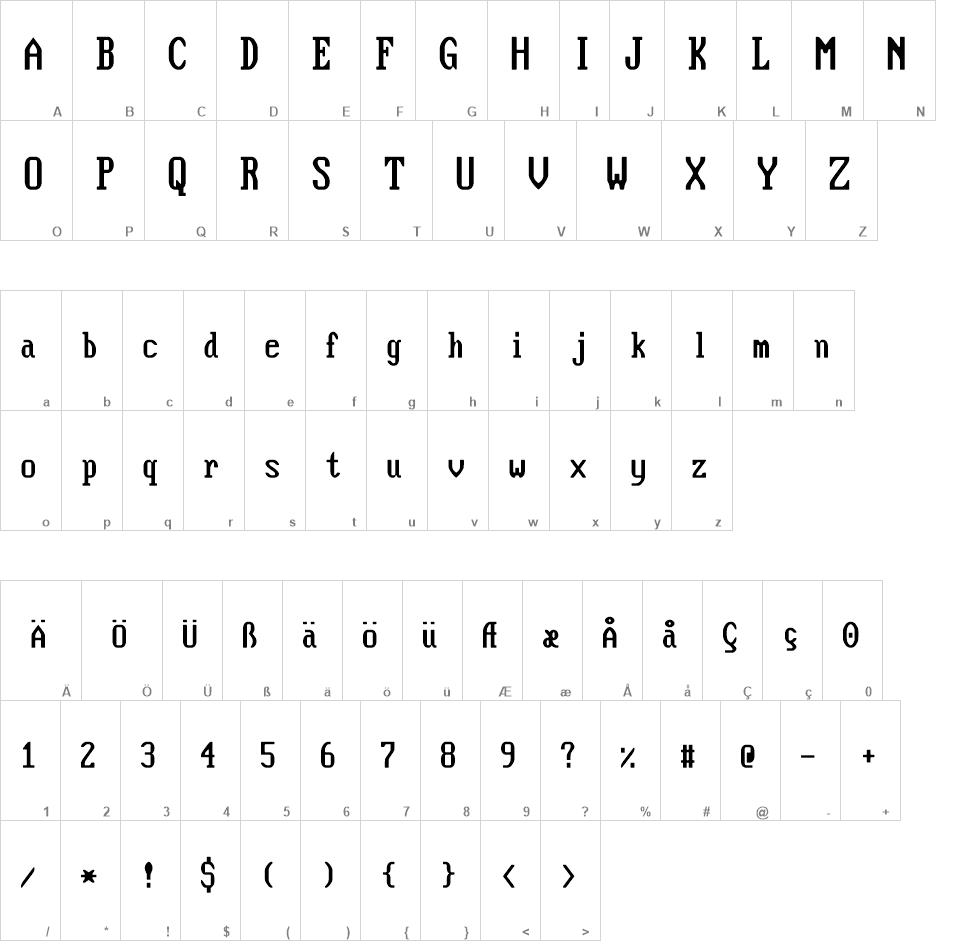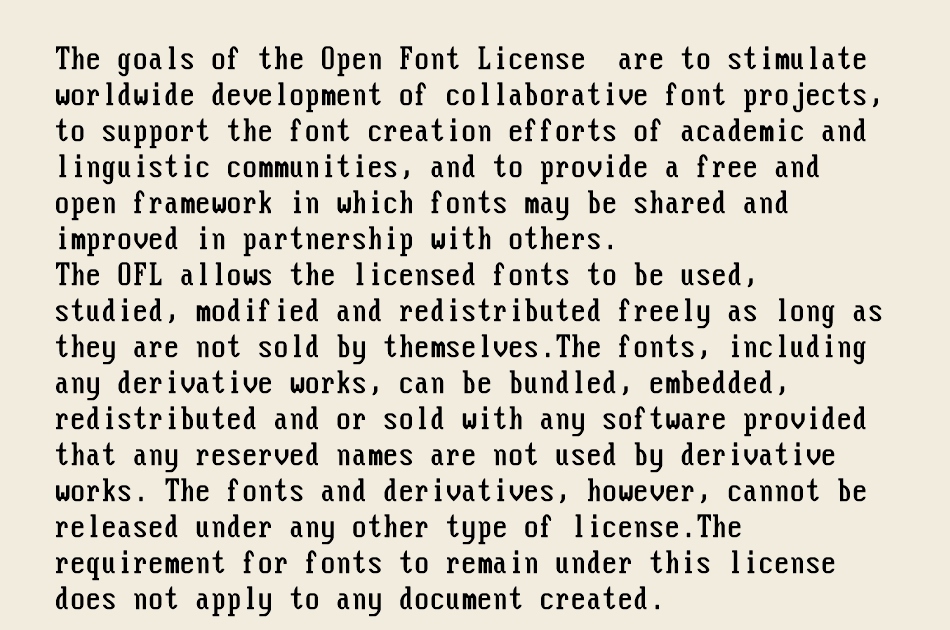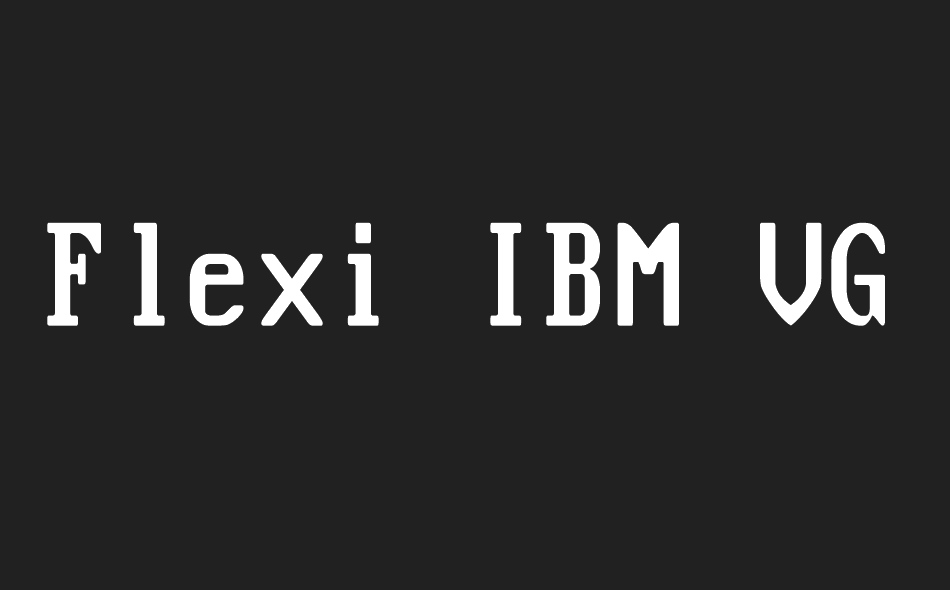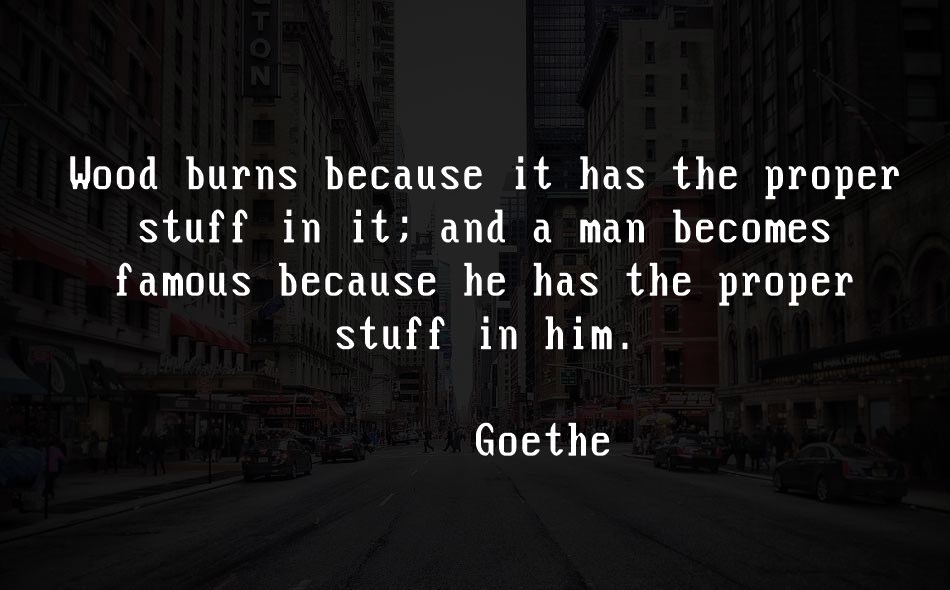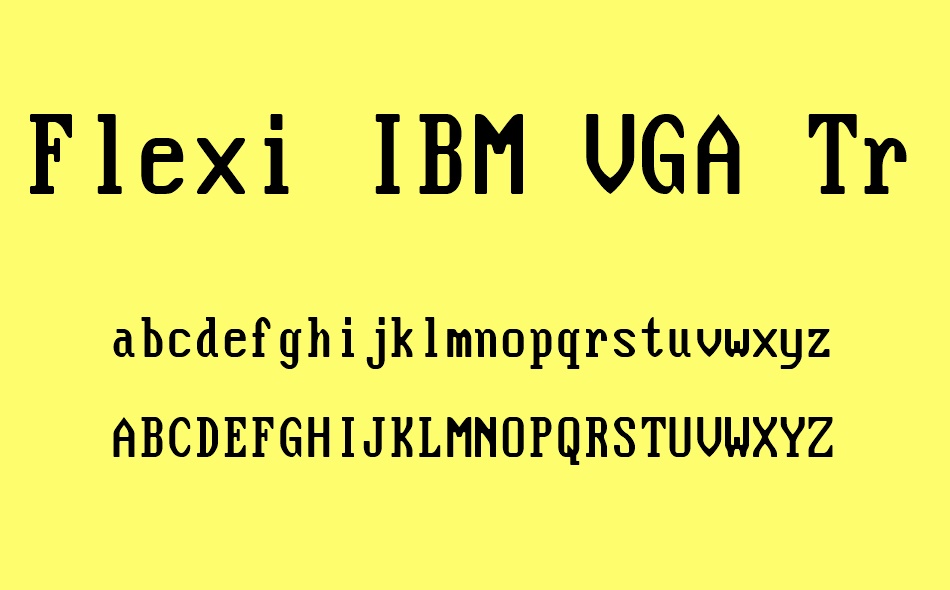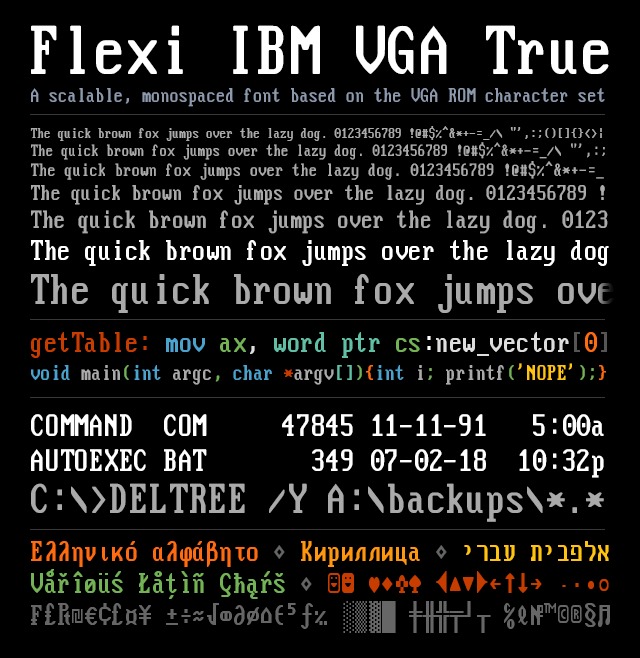
Flexi IBM VGA True font
TrueType fonts based on the VGA character set (as seen in DOS, hardware text modes, ANSI/ASCII art, and so on).
Manually converted from pixel-grid bitmaps to scalable outlines, meant to preserve the original look perceptually.
The 'True' versions are aspect-corrected, to match the appearance of text on a 4:3 VGA monitor.
Included variants:
* "Flexi IBM VGA True": an extended character set, including Greek, Hebrew, Cyrillic and many Latin scripts, etc.
* "Flexi IBM VGA True (437)": an exact match of the 8-bit "US-Latin" DOS encoding; contains only the characters from the original IBM PC code page 437.